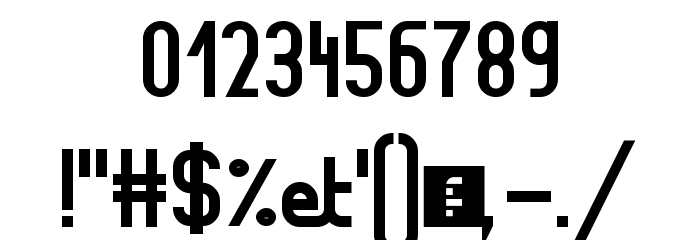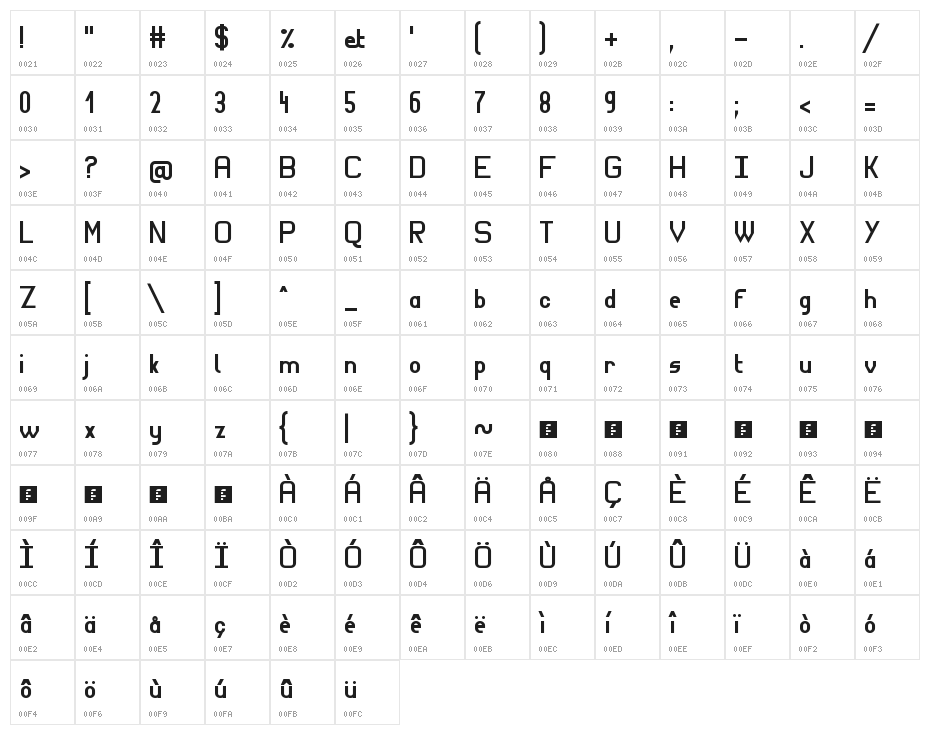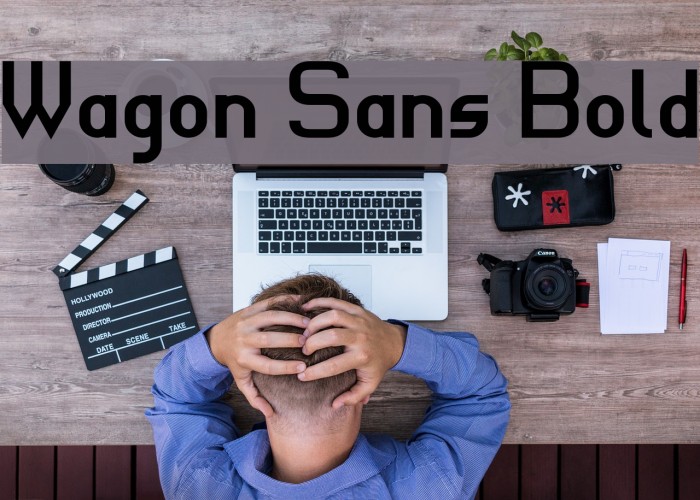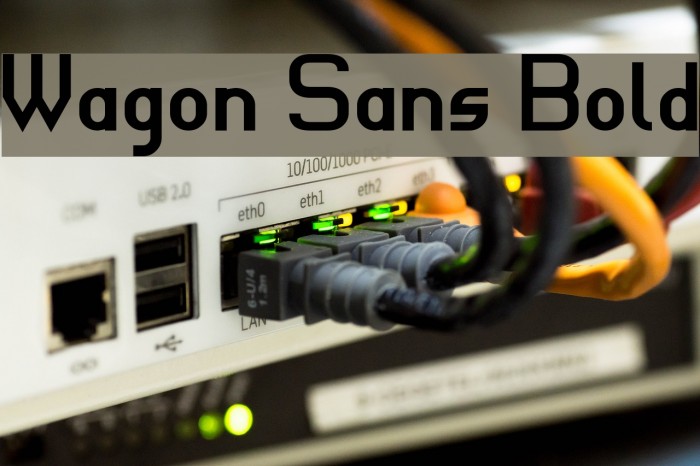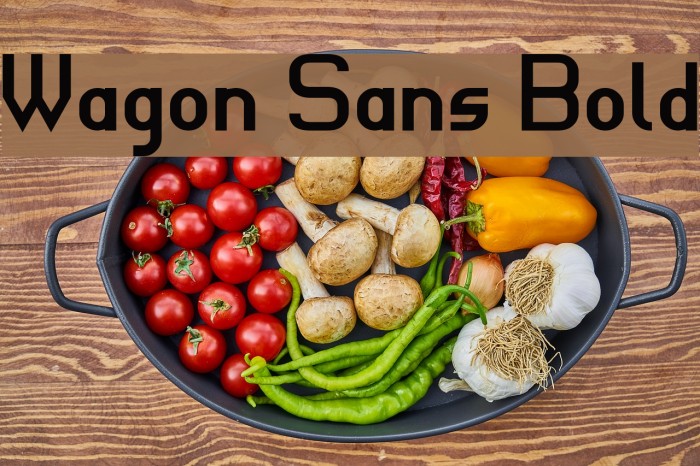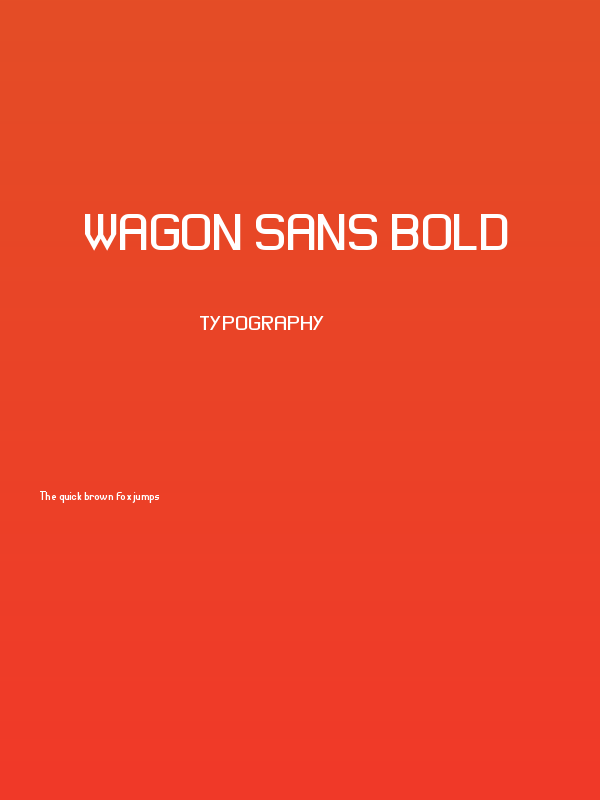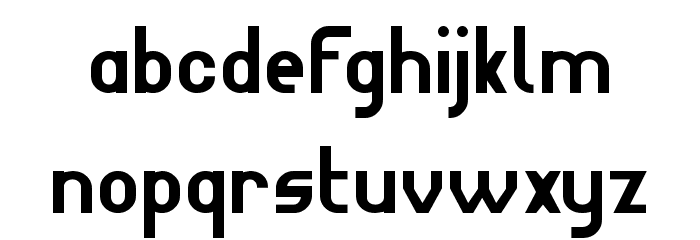
Wagon Sans Bold Font
Wagon Sans Bold Description
This font features a bold, geometric sans-serif style with a modern and clean appearance. The characters are constructed with uniform stroke widths, giving it a cohesive and structured look. The uppercase letters are slightly taller than the lowercase, with a consistent baseline and x-height. The numerals are proportional, matching the height of the uppercase letters, which ensures readability and balance. Special characters are designed to complement the overall style, maintaining the geometric and bold aesthetic. This font is versatile, suitable for various design applications where clarity and impact are desired.